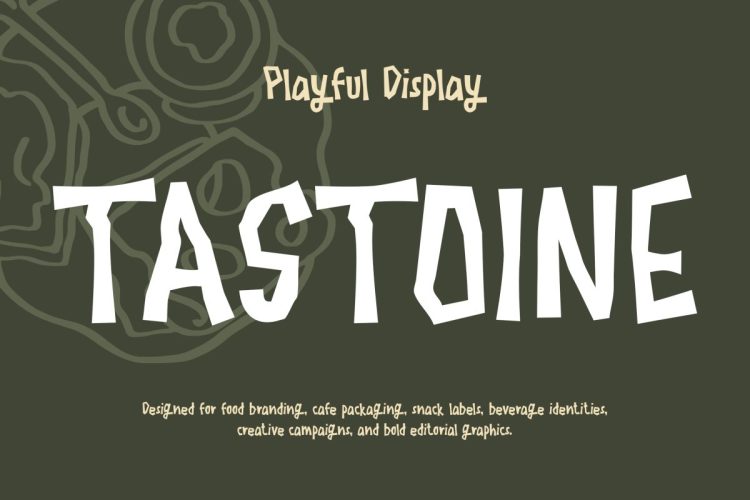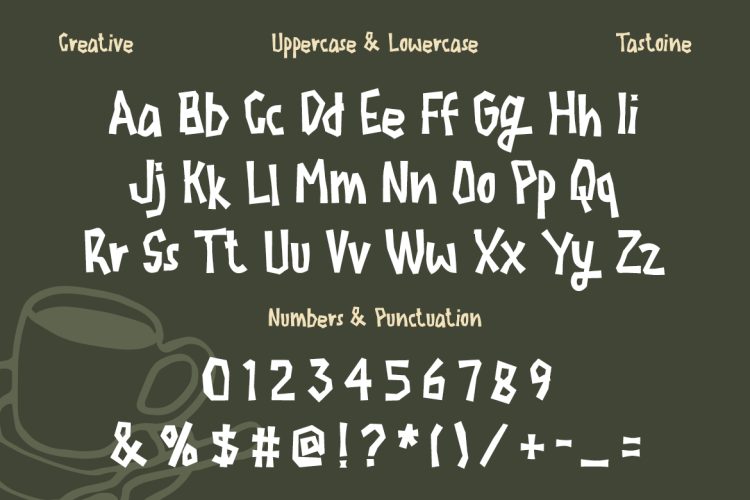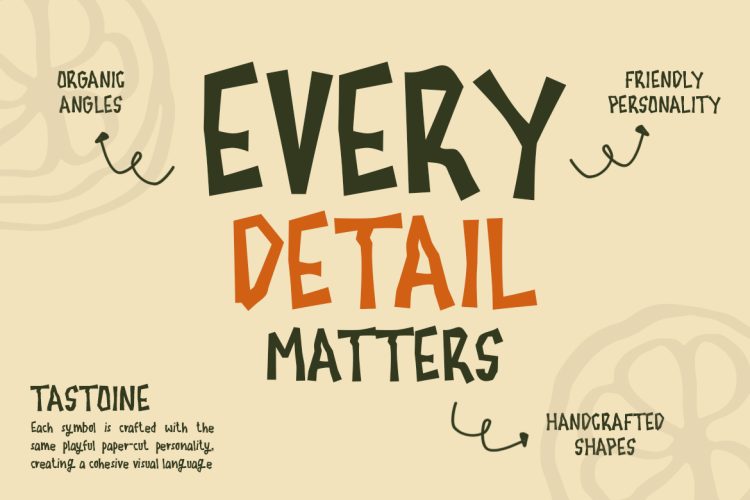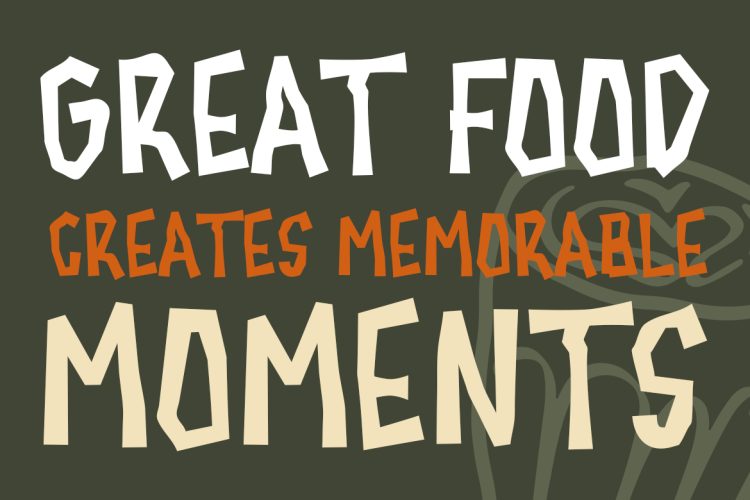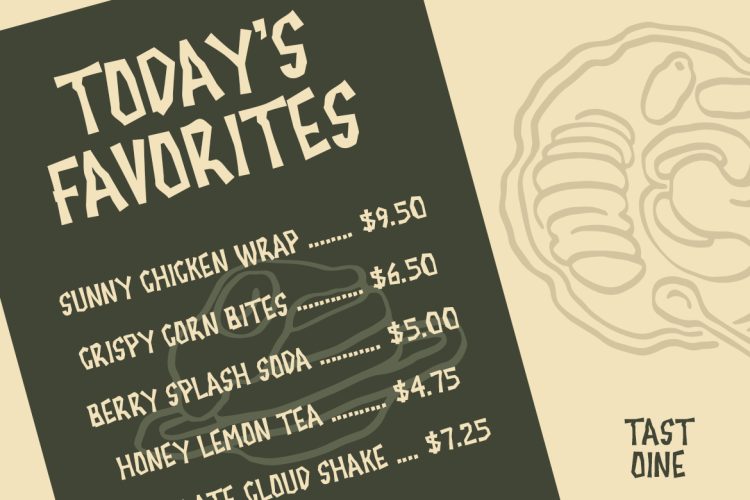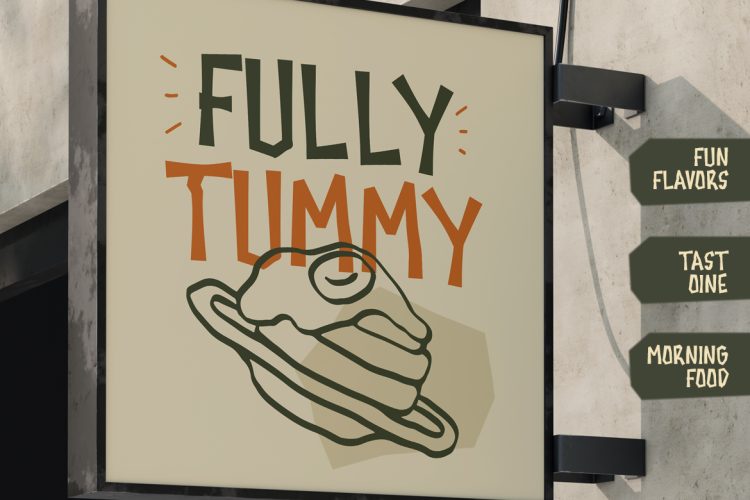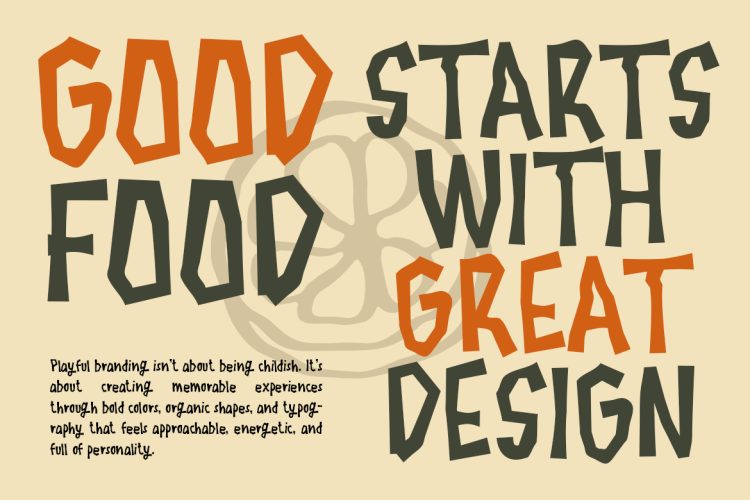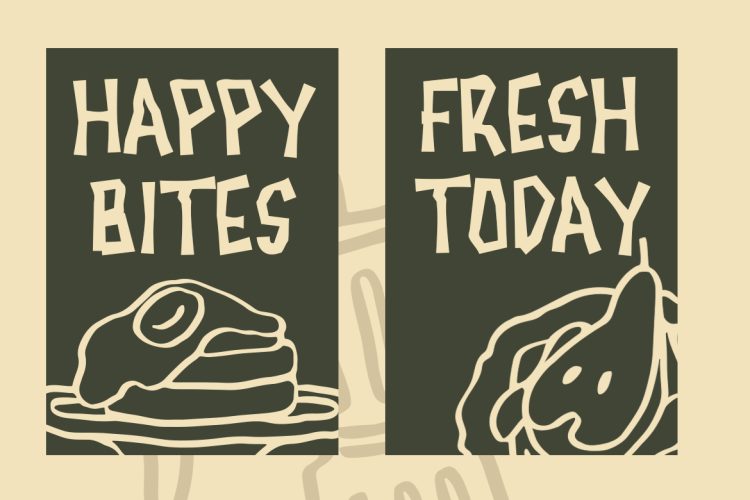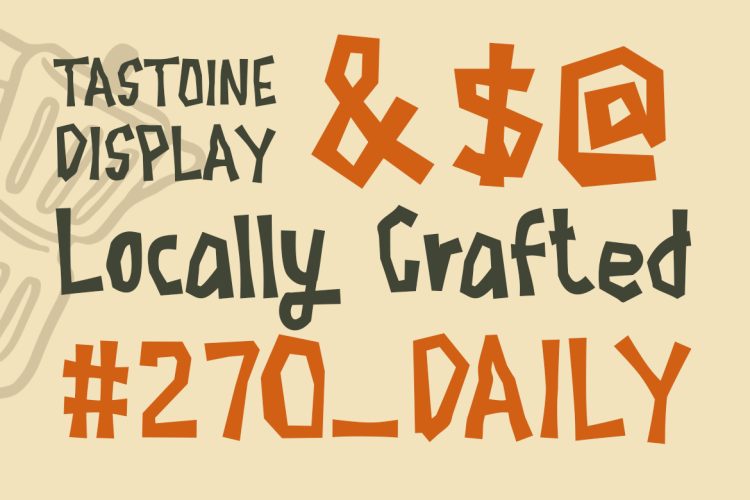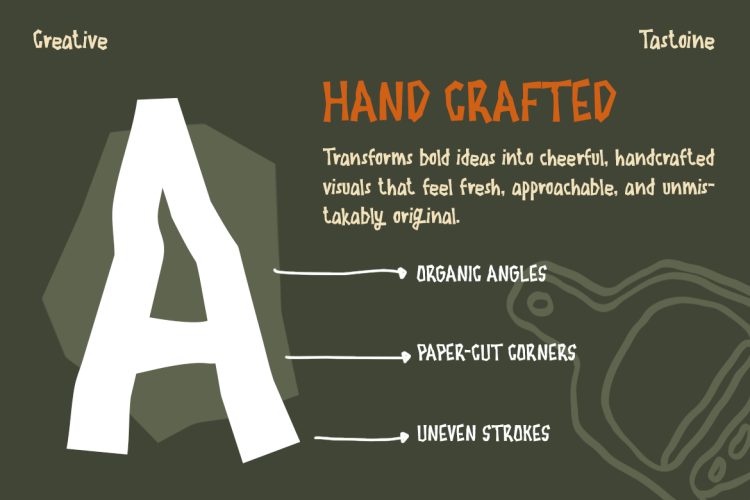
Kids Font Tastoine โ Bold, Organic & Fun Lettering for Food Branding, Kids Projects, and Creative Designs
Kids Font Tastoine is a playful handcrafted display font that brings warmth, creativity, and personality to every project. Inspired by organic hand-drawn lettering, it features bold, irregular shapes and expressive characters that create a genuine handmade appearance. Moreover, its unique structure adds visual energy while remaining clear and easy to read. As a result, every headline feels more inviting, memorable, and full of life.
Why You’ll Love It
Additionally, Tastoine combines artistic imperfections with practical versatility, making it suitable for many creative purposes. Its uneven strokes, playful angles, and handcrafted details deliver an authentic look that instantly grabs attention. Whether you’re designing food packaging, restaurant branding, children’s products, or social media content, this font helps communicate a fun and friendly personality. Furthermore, it pairs beautifully with illustrations, minimalist layouts, and colorful branding. Therefore, your designs feel more engaging without looking overdesigned.
Kids Font Tastoine Perfect For
Food packaging, cafรฉ branding, restaurant menus, bakery logos, kids products, children’s books, posters, flyers, social media graphics, YouTube thumbnails, event promotions, stickers, merchandise, creative branding, and handmade businesses.
Make Every Design Feel Handmade